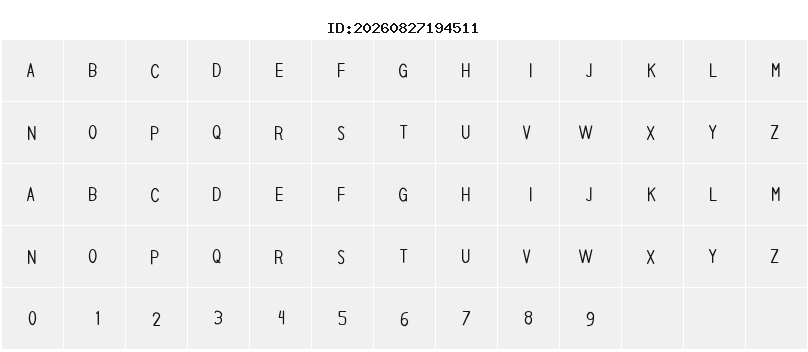
teamaaw Preview
• Font Name: teamaaw
• Designer: ihsan habib
About teamaaw.ttf
teamaaw.ttf is a modern, elegant sans-serif font designed for ultimate readability and visual harmony. Perfect for branding, headlines, web design, and print materials.